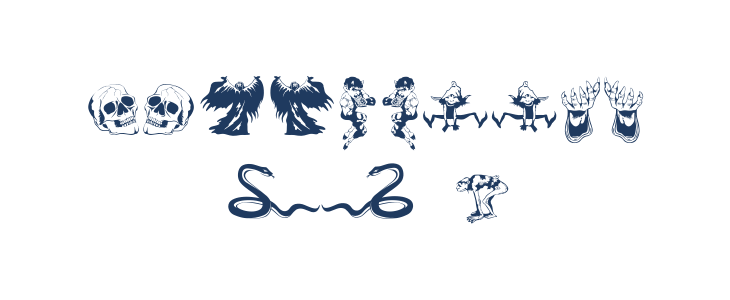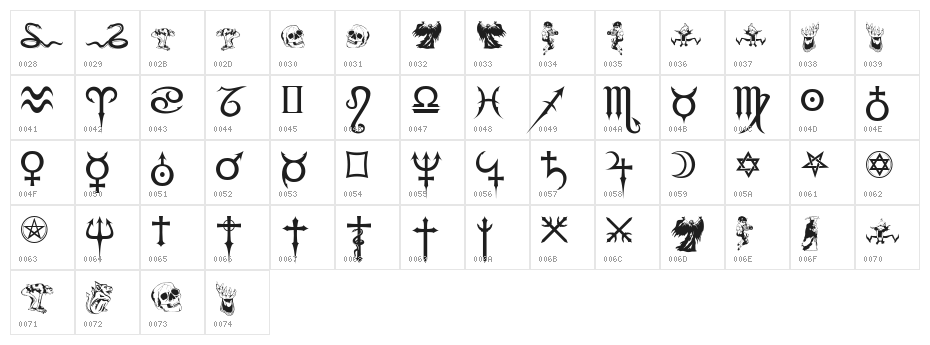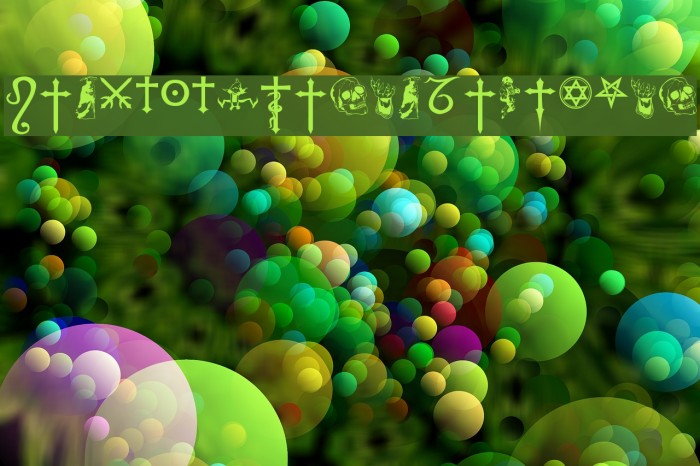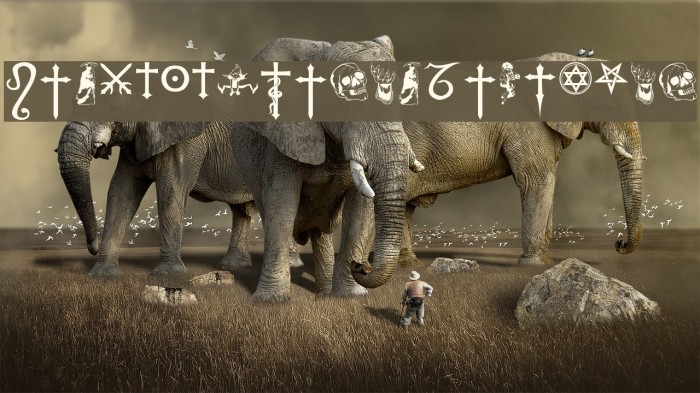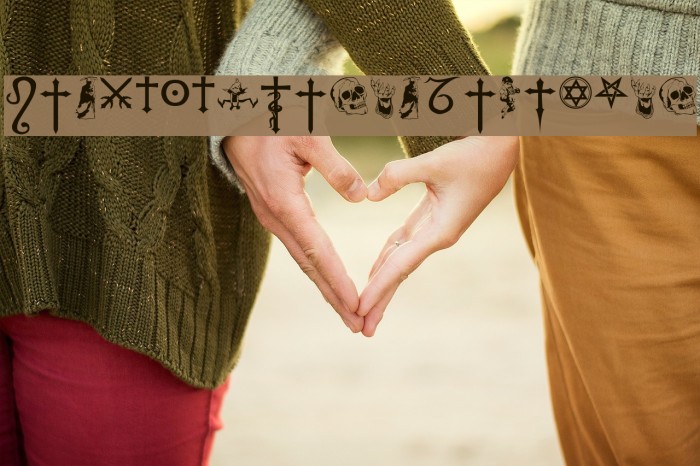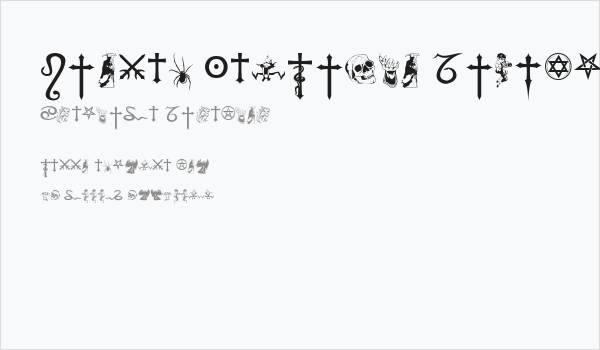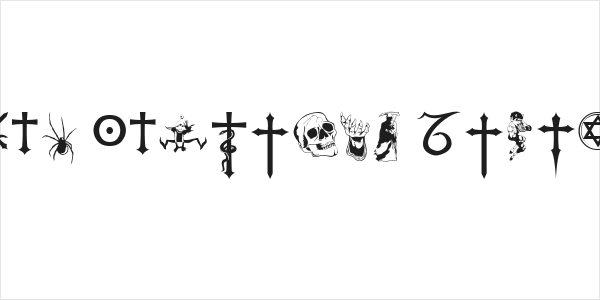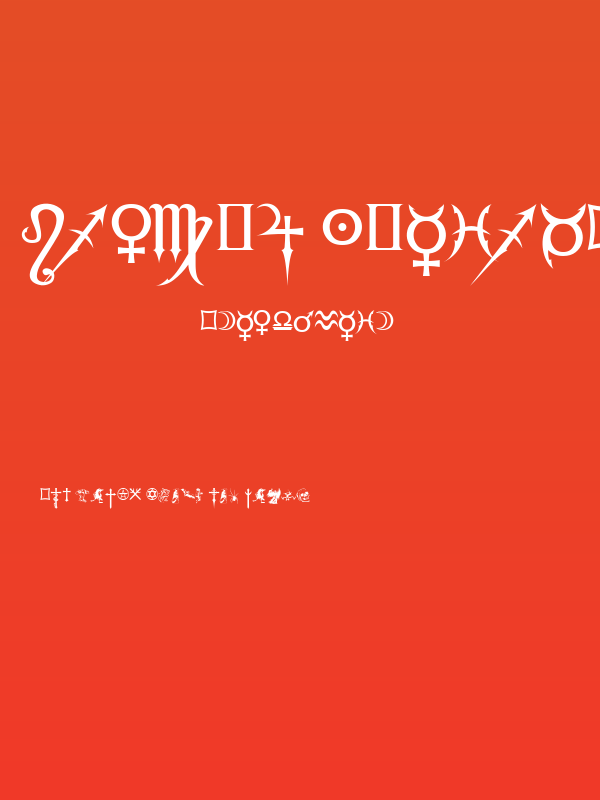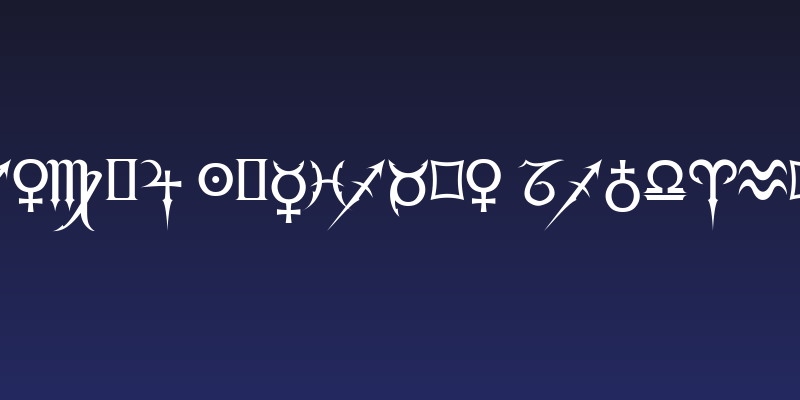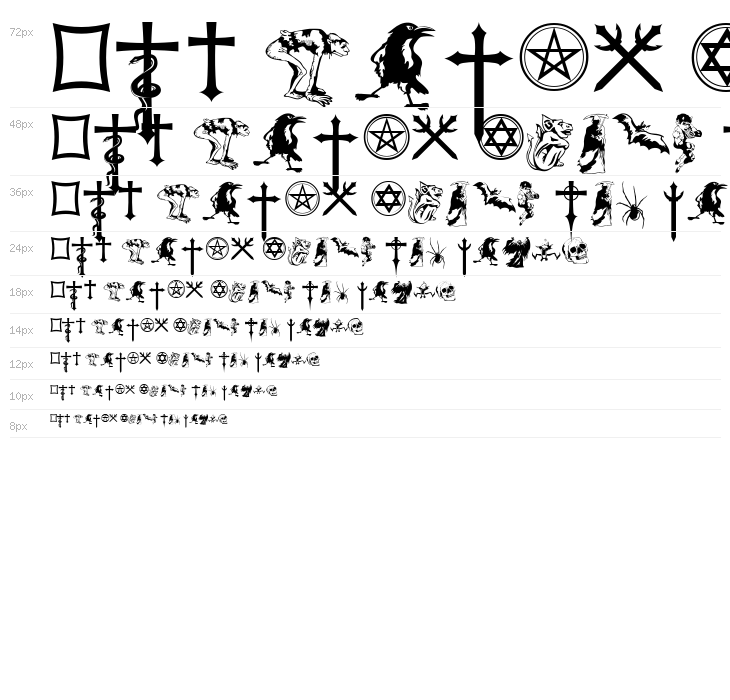
Fiolex Mephisto Dingbats Font
Fiolex Mephisto Dingbats Description
This collection features a series of intricate and bold symbols, each with a distinct gothic and mystical flair. The designs include a variety of esoteric symbols, mythical creatures, and dark, ornate imagery. The characters are highly detailed, with sharp edges and dramatic curves, creating a sense of mystery and intrigue. The style is reminiscent of ancient runes and occult iconography, making it ideal for projects that require a touch of the supernatural or the macabre. The bold strokes and complex designs make each symbol stand out, ensuring they capture attention and convey a sense of power and mysticism.
| Overall Style | Gothic, Mystical, Decorative |
| Use Case | Logos, Illustrations, Themed Events |
| Proposed Projects | Ideal for use in fantasy-themed designs, gothic artwork, book covers, game graphics, and any project requiring a mystical or dark aesthetic. |